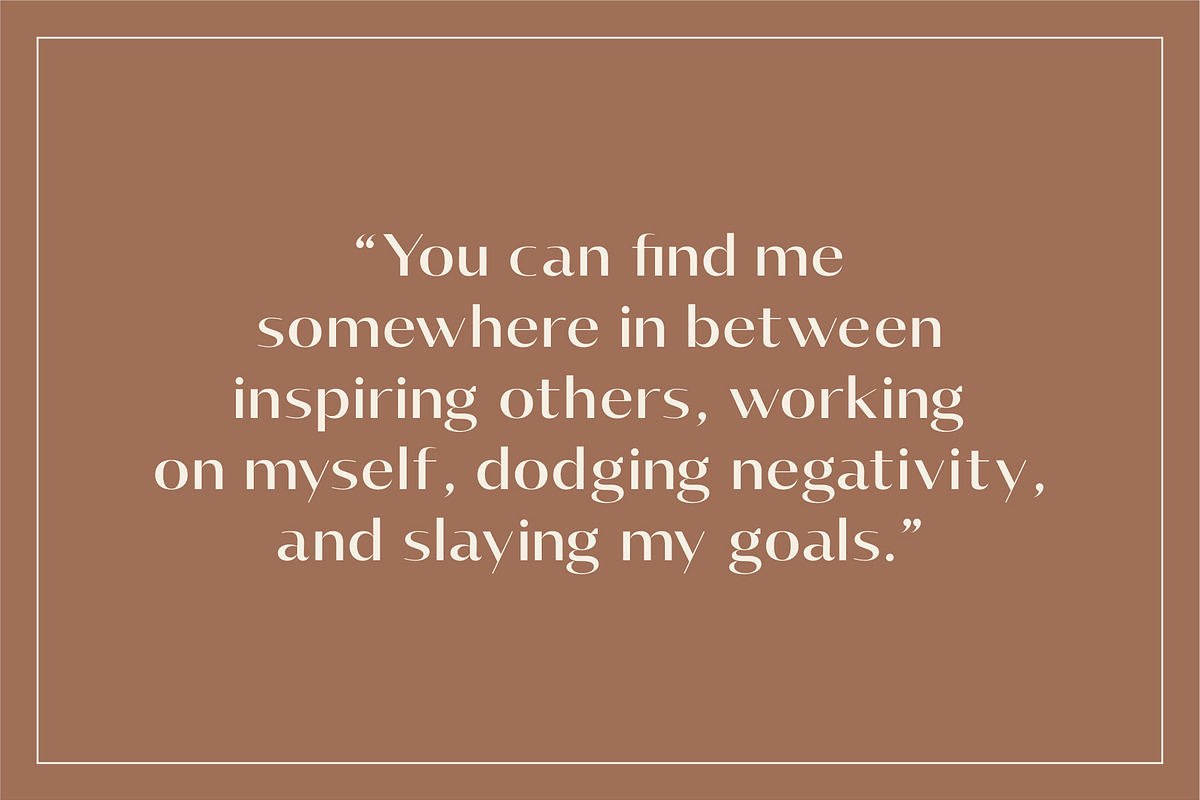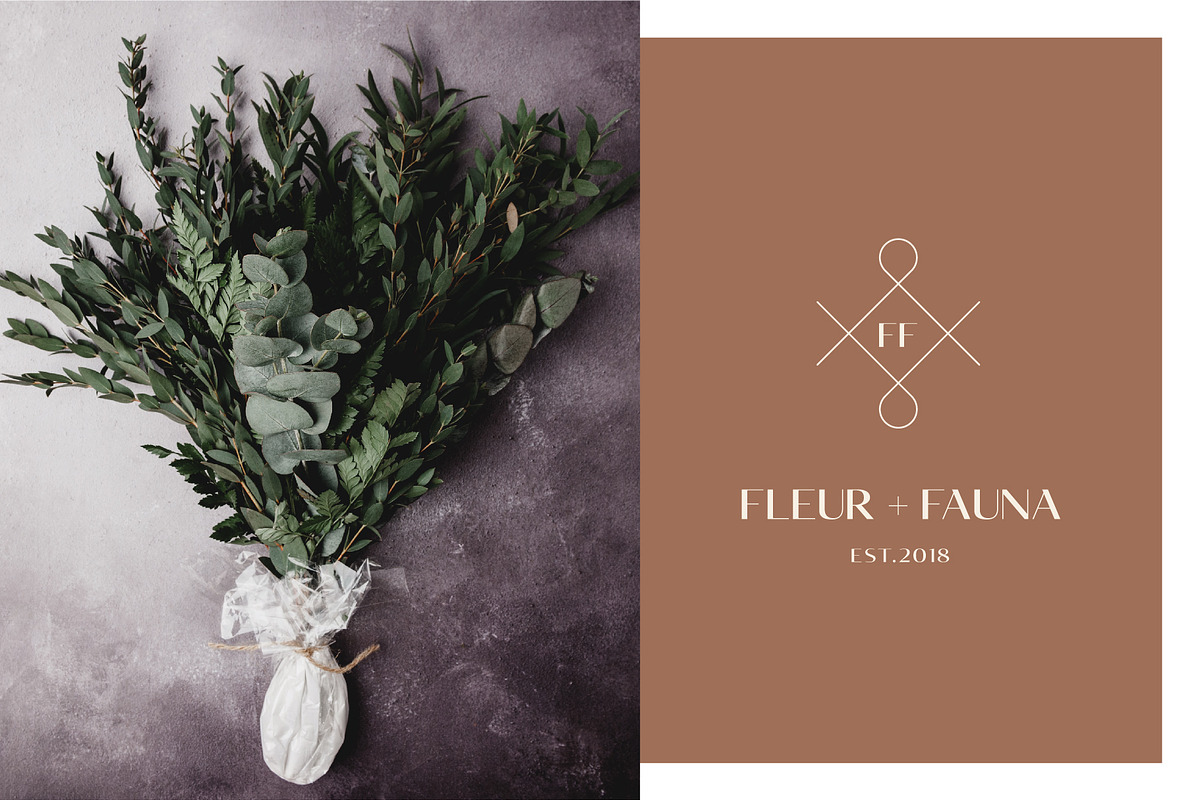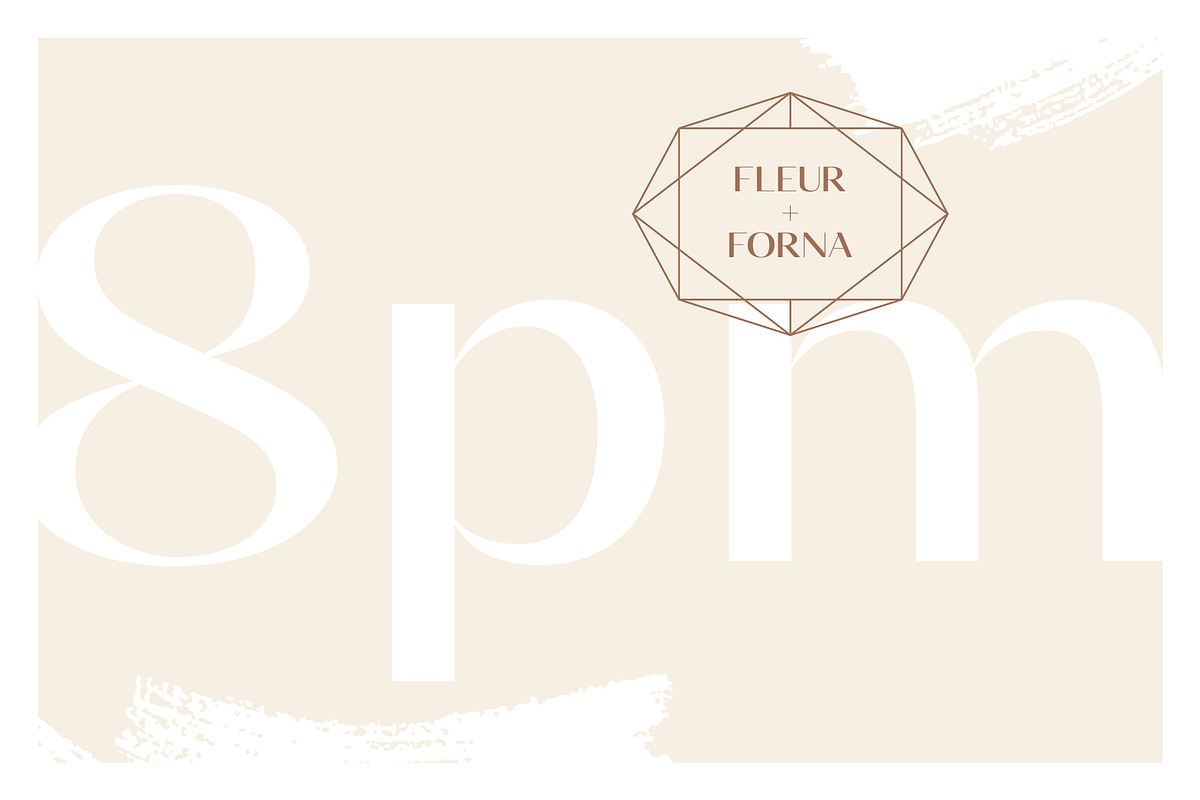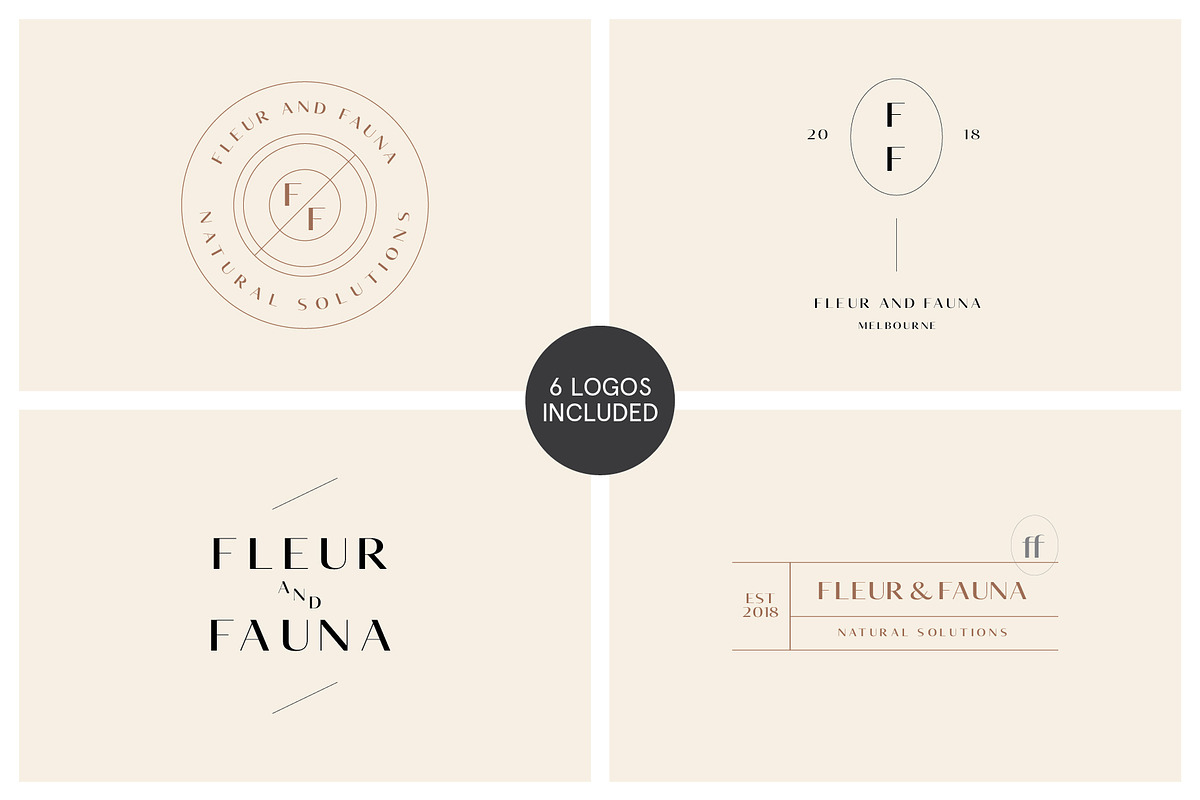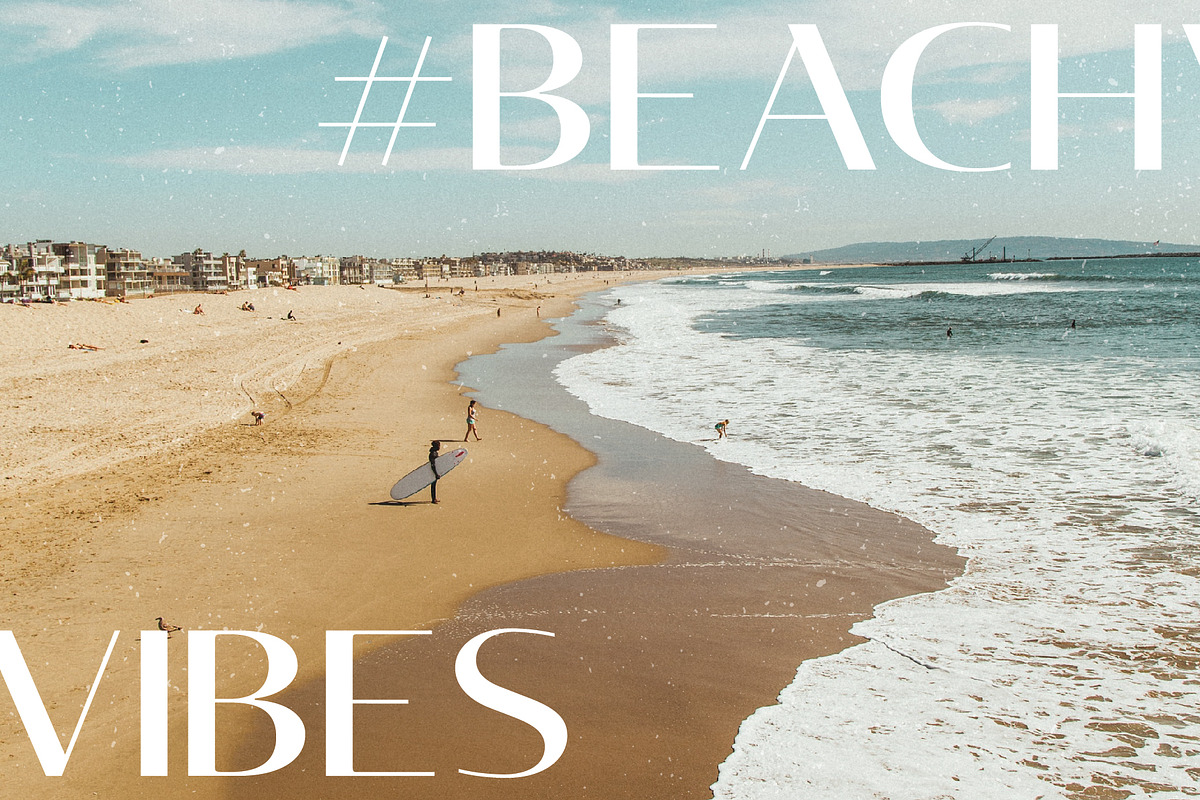
Quebec - Elegant Font and Logo Set
Quebec is a contemporary and unique elegant sans-serif font. It is perfect for use in logos and as header copy for magazines and posters. Being upper and lower case it is also suitable for body copy text.
Uppercase and lowercase letters
Numbers & extended punctuation
Foreign language accents & characters for international support
- Also included is 6 highly crafted and editable logo files that utilize the font as a basis for each design.
Quebec - Elegant Font and Logo Set by Studio Aurora fits naturally into Branding, posters, packaging, typography.